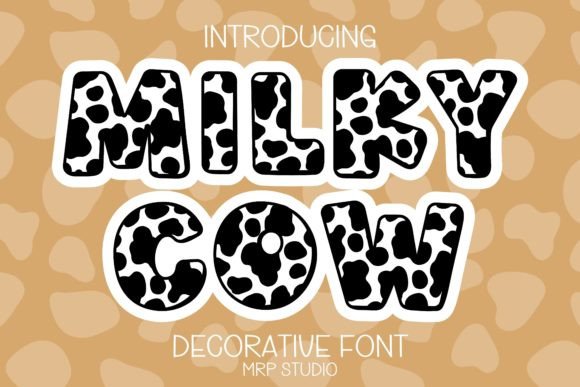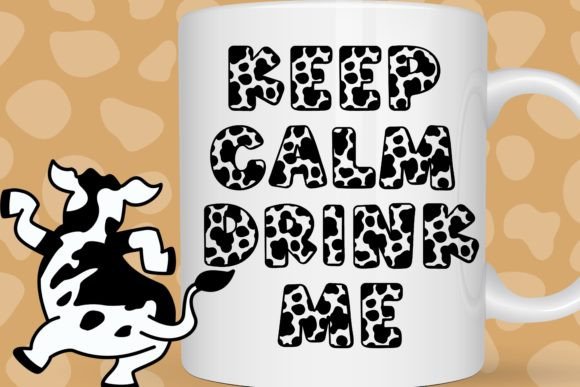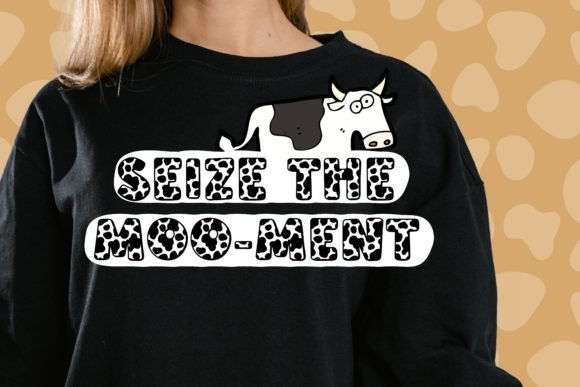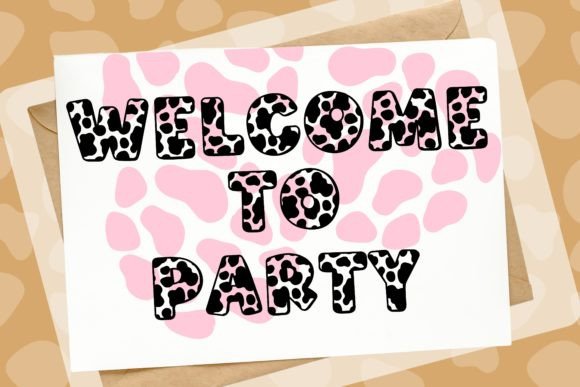
Milky Cow Font
About the Milky Cow Font
From logos to headlines, the Milky Cow Font is the perfect choice for making a lasting impression. Milky Cow is designed in a cute and adorable decorative font style. It would be awesome for your lovely project and also your child-related project such as back to school, birthday party decoration, and much more to any topic which needs bright and fun touch. Let’s try it and add it to your creative ideas and notice how it makes them stand out!
Milky Cow’s playful charm makes it ideal for children’s books, greeting cards, and branding for products targeting a young audience. It also works well in short headlines or playful social media graphics where its decorative style adds visual interest. However, its decorative nature makes it unsuitable for body text or UI elements requiring high readability. Long paragraphs set in Milky Cow would be difficult to read.
Pairing Milky Cow effectively requires a contrasting typeface. A clean sans-serif like Open Sans or Lato provides excellent readability for supporting text, balancing Milky Cow’s whimsicality. For a more sophisticated feel, consider pairing it with a classic serif like Garamond or a slightly more geometric sans-serif such as Montserrat.
Milky Cow’s overall personality is undeniably cheerful and friendly, adding a touch of whimsy and approachability. Its decorative forms are best used sparingly as an accent, rather than as a dominant visual element.
Milky Cow Font Usage Examples
Milky Cow Font Example